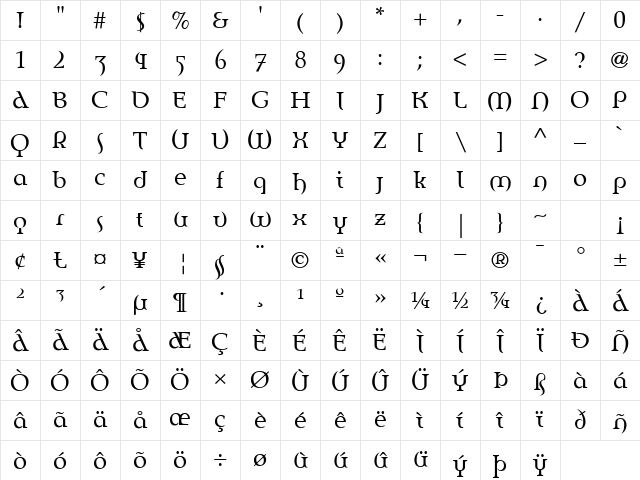
Complete Envision Regular glyph index. Displaying only characters natively supported by Envision Regular font.
Envision is a composed and adaptable typeface that performs quietly and consistently across a wide range of design contexts.